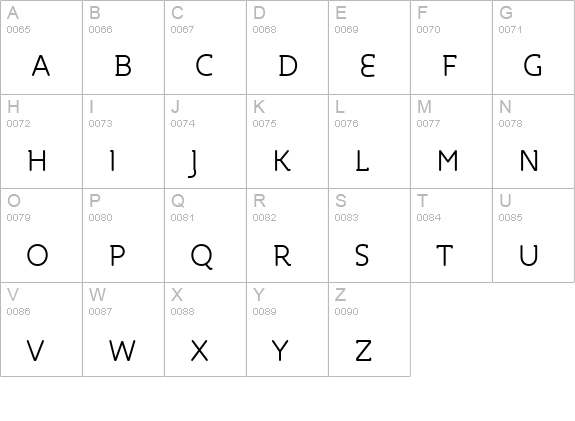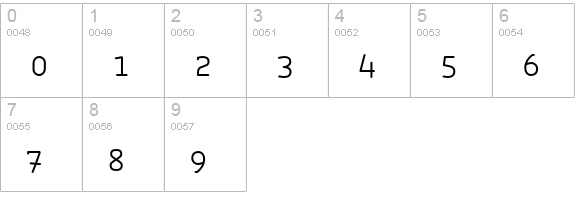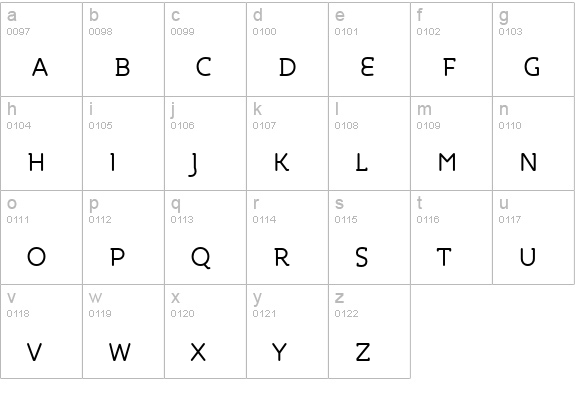
Roice-LightSC Font Details
Roice-LightSC is a modern and stylish font that exudes elegance and sophistication. With its sleek and minimalistic design, this font is perfect for a wide range of projects, from branding and advertising to invitations and social media graphics. What sets Roice-LightSC apart is not only its striking appearance but also the fact that it is available for free download at FontsMarket.com. This means that you can easily access this beautiful font without any cost, making it a valuable addition to your design toolkit. Whether you are a professional designer looking for a versatile font to elevate your projects or a hobbyist seeking to enhance your creative endeavors, Roice-LightSC is a fantastic choice. Its clean lines and contemporary feel will bring a touch of sophistication to any design, making it a must-have font for anyone who appreciates quality typography. Download Roice-LightSC for free today and unlock the potential of your designs!